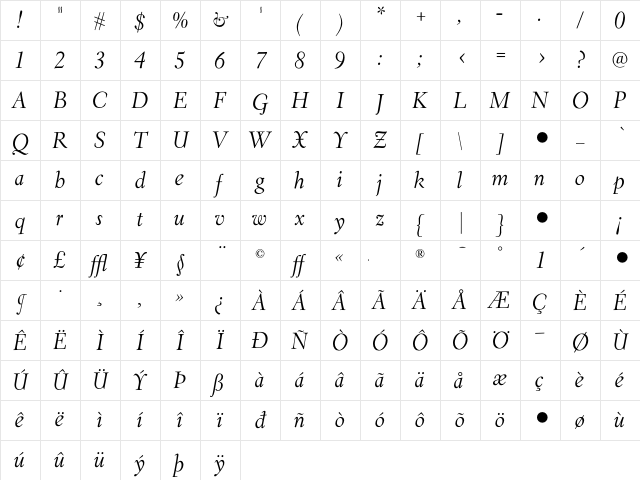
EldoradoDisplay Italic
Complete EldoradoDisplay Italic glyph index. Displaying only characters natively supported by EldoradoDisplay Italic font.
Design Context for EldoradoDisplay
EldoradoDisplay is built around its visual character rather than neutral utility - its distinctive forms are designed to make an impression at display sizes. The slanted form adds forward momentum and visual energy.
Font Pairing: Pair with a clean neutral sans-serif for body copy to let EldoradoDisplay's character lead without overwhelming the composition.
Pro Tip: Use EldoradoDisplay exclusively at display sizes - it was designed to be seen, not read at length. Let a neutral companion handle body copy.